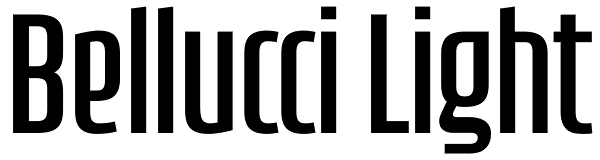
Bellucci
Bellucci is the redesign of Ramiro Espinoza's first typeface, Mabella. Being not happy with the original design, he decided to redraw it completely and add 3 new weights. Bellucci is a constructivist, modular, compressed family intended for...